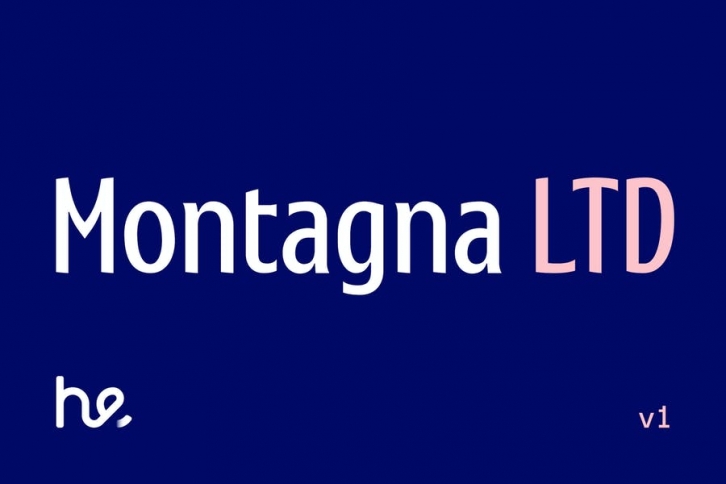
📦 PRESENTATION OF THE FONT
You can say hello to the font that inaugurates a series of upcoming production entirely inspired by the Italian historical culture that meets different styles and artistic inspirations. Montagna LTD tells in a single graphic expression the decorativism of Stile Liberty and the functionality of humanistic writing.
💈 THE LIBERTY INSPIRATION
The Montagna LTD font has an ancient soul inspired by the Stile Liberty that we can find in the details of the terminal traits and in the composure of the forms. With the term "Liberty" we mean an artistic movement that, especially in the late nineteenth and early twentieth centuries, concerned mainly architecture and applied arts. The cultural aesthetic phenomenon of the so-called Arte Nuova, was also called "floral" for the taste of biological, natural and phytomorphic forms.
🇮🇹 A TRIBUTE TO ITALY
The historical aspect strongly characterizes the fonts belonging to this series, and Montagna LTD is a tribute to Italy of the early twentieth century. And there is an artist who remembers this font very much in his works: it is Leopoldo Metlicovitz, painter, illustrator, scenographer and Italian publicist. One of his most famous posters is the theatrical representation "Cabiria" by Gabriele D'Annunzio. The Montagna LTD font therefore has the mood of an ancient Italy, revised for a modern and international use.
💡 THE FUNCTIONALITY OF HUMANISTIC CHARACTERS
The structure of the font is revised and simplified according to the humanist style that makes it current, functional and easy to read. This group of characters is based on the humanistic writing of the fifteenth century manuscripts, as opposed to the Gothic one used by Gutenberg for the first printing with movable characters around 1450. The humanistic calligraphy, rounder and wider, was obtained with a wide nib, which allowed for greater plasticity. Nowadays, the humanistic fonts, precisely because they are inspired by this classic writing with a big and slanted nib, keep the fundamental characters in the history of the font design, remembering the handwriting.
🛠 CHARACTERISTICS OF THE FONT
• Ink traps
• Slightly condensed letterforms
• *tight and sharp serifs *
• Inclined axis to the right
• balanced contrast
🖨 USE OF THE FONT
The tight and very pointed serifs of the Montagna LTD font make it perfect for editing books, labels, logos and to make websites more interesting, by contrasting them with logos or other sans characters.